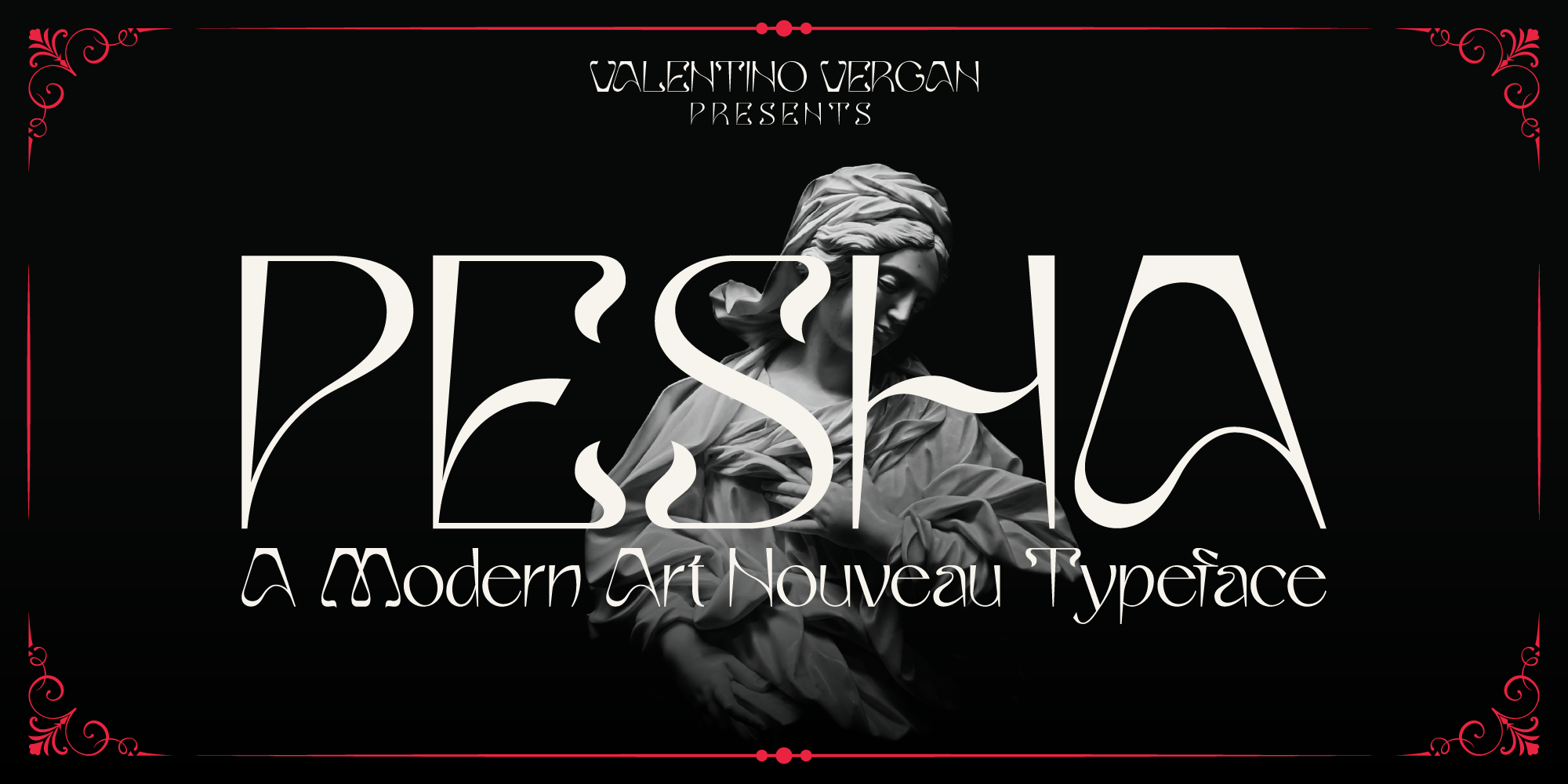
Pesha Font is perfect for modern lifestyle branding, contemporary fashion campaigns, trendy boutique signage, urban cafe marketing, stylish beauty packaging, chic interior design projects, sophisticated app interfaces, elegant social media graphics, modern art galleries, and premium lifestyle advertising.
What makes Pesha Font exciting is its contemporary sophistication that perfectly captures the effortless style and modern elegance found in today's fashion-forward lifestyle and urban sophistication. This typeface features sleek letterforms with stylish proportions and contemporary details that evoke the confident grace and modern femininity of cosmopolitan living. The font's chic personality and urban elegance make it ideal for lifestyle brands seeking to convey modernity, sophistication, and the refined taste that comes from contemporary design sensibility and metropolitan lifestyle values.
Pesha Font family includes stylish weight variations and contemporary alternatives that enhance its modern appeal while providing design flexibility for fashion and lifestyle applications. The font features elegant ligatures, sophisticated ornaments, and stylish character variations that create authentic contemporary atmosphere for modern lifestyle and fashion branding.
Fashion brands and lifestyle companies consistently select Pesha Font Free Download for projects requiring authentic contemporary appeal and sophisticated credibility. The font's chic character excels in applications targeting modern consumers who appreciate genuine style and contemporary elegance. Whether you're designing for fashion boutiques, beauty brands, or lifestyle products, this sophisticated typeface delivers the contemporary authenticity and urban elegance that resonates with audiences seeking genuine modern style and the effortless sophistication that defines contemporary metropolitan living and fashion-forward lifestyle choices.